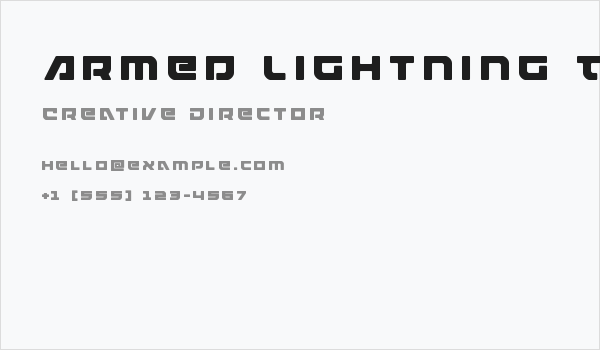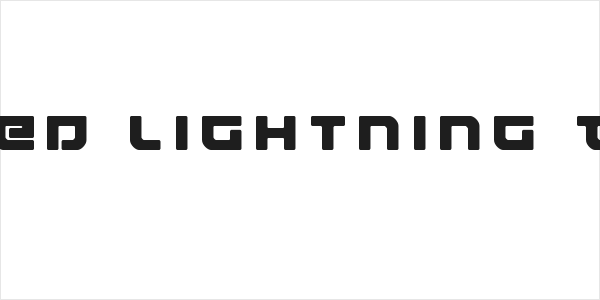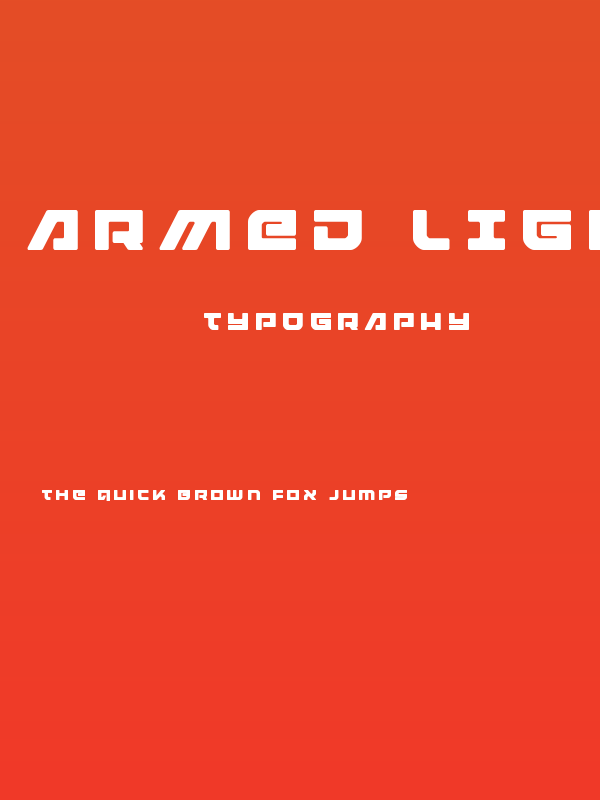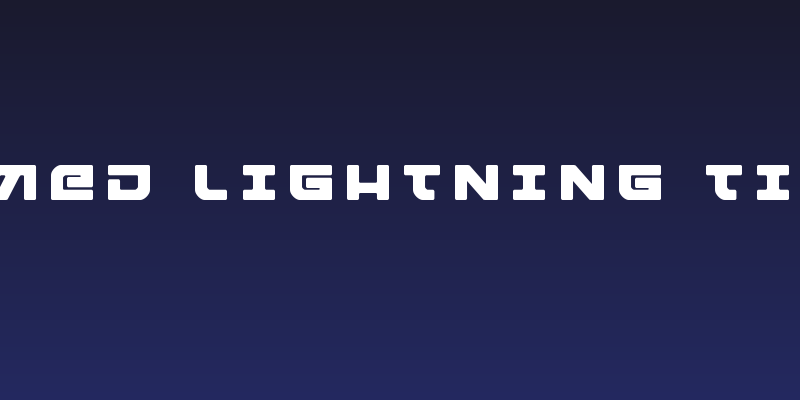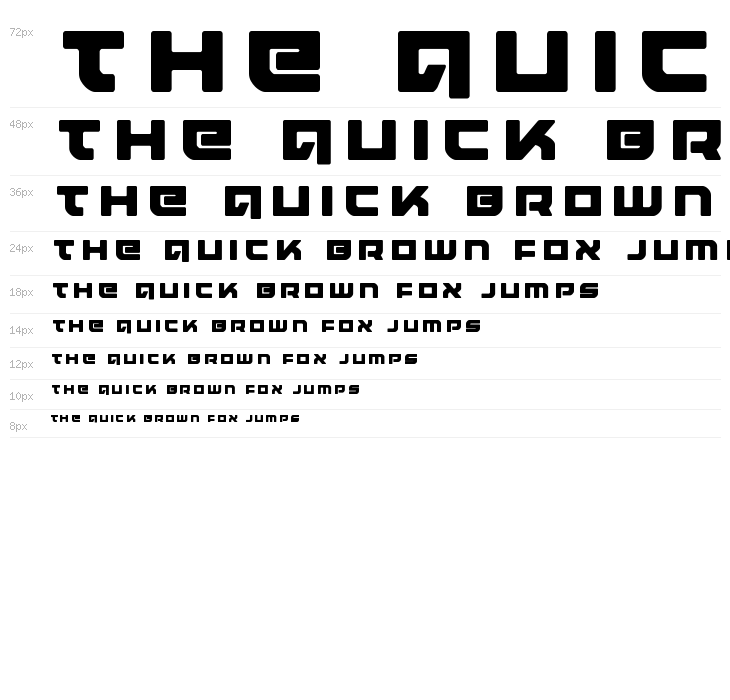
Armed Lightning Title Font
Armed Lightning Title Description
This font features a bold, geometric design with a futuristic and industrial feel. The characters are constructed with sharp angles and straight lines, giving them a strong, impactful presence. The uppercase and lowercase letters maintain a consistent style, with the lowercase letters being slightly more compact. The numbers and special characters follow the same design principles, ensuring uniformity across the entire set. The font's boldness and unique style make it suitable for attention-grabbing headlines and titles.
| Proposed Projects | Ideal for sci-fi themed projects, technology branding, video game titles, and modern posters. |